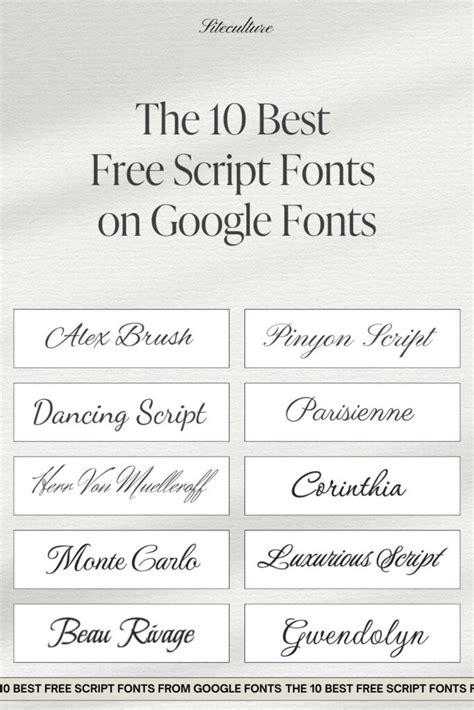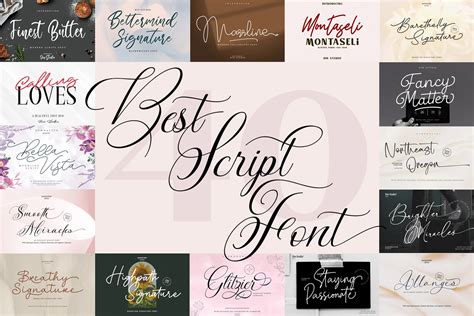
Best Script Fonts Google: Free & Premium Options
Readers, have you ever been captivated by a beautifully designed logo or website, noticing the intricate details and elegance of its fonts? Among the wide array of font styles, script fonts hold a special place, adding a touch of artistry, charm, and personality to any project. But navigating the vast world of free and premium script fonts can be overwhelming. That's where we come in! We've delved into the depths of Google Fonts and beyond, carefully curating a selection of the best script fonts for your design needs.
We're seasoned font enthusiasts, with a keen eye for detail and a passion for helping you find the perfect script font for your project. We've analyzed countless options, considered their versatility, readability, and aesthetic appeal, to bring you this curated list of both free and premium script fonts that are sure to elevate your designs.
The Art of Script Fonts: A Journey Through Styles
Script fonts, derived from cursive handwriting, have a unique flair that sets them apart. They evoke a sense of fluidity, elegance, and personality, making them ideal for adding a touch of sophistication to any design. But before diving into our curated list, let's explore the diverse world of script fonts and their captivating styles.
1. Formal Script Fonts: Elegance and Refinement
These script fonts exude a sense of classic sophistication, often used for elegant invitations, wedding stationary, or high-end branding. Their refined strokes and intricate details create a timeless and refined aesthetic. Think of them as the black tie attire of the font world - perfect for occasions that demand a touch of formality and a touch of class.
2. Casual Script Fonts: Playful and Approachable
On the other side of the spectrum lie casual script fonts, bursting with playful energy and a touch of whimsy. These fonts are perfect for projects seeking a friendly and approachable feel, such as social media graphics, blog headers, or quirky product packaging. They're like the jeans and t-shirt of fonts - comfortable, adaptable, and always ready for a good time.
3. Modern Script Fonts: A Fusion of Tradition and Innovation
Modern script fonts seamlessly blend traditional cursive elements with contemporary design sensibilities. They often feature clean lines, geometric shapes, and a minimalist aesthetic. They're the perfect choice for projects looking to embrace a modern and sophisticated vibe, such as website headers, brand identities, and minimalist marketing materials.
Best Free Script Fonts on Google Fonts: A Treasure Trove of Creativity
Google Fonts is a haven for designers, offering a vast library of free, high-quality fonts, including a stunning collection of script fonts. Let's explore some of the best free script fonts on Google Fonts, categorized by style:
1. Formal Script Fonts on Google Fonts
- Dancing Script: This font offers a romantic and delicate feel, ideal for invitations, logos, and website headers. Its flowing strokes and elegant curves make it a charming choice for adding a touch of grace and sophistication to any design.
- Great Vibes: This font is a classic choice for projects seeking a vintage and romantic vibe. It's often used for wedding stationery, posters, and branding, and its distinctive character adds a timeless and sophisticated touch.
- Satisfy: This stylish and elegant script font is perfect for adding a touch of sophistication to logos, headlines, and branding materials. Its bold strokes and distinctive curves create a unique and memorable visual impact.
2. Casual Script Fonts on Google Fonts
- Allura: This font is a versatile and charming script font, perfect for adding a whimsical and fun touch to projects such as social media graphics, posters, and website headers. Its flowing strokes and playful curves create an energetic and inviting feel.
- Amatic SC: This font exudes a playful and quirky energy, perfect for projects seeking a fun and approachable vibe. It's often used for social media graphics, posters, and branding, adding a touch of personality and whimsy.
- Handlee: This charming and approachable font is great for projects that require a friendly and inviting feel. It's often used for social media graphics, website headers, and branding, adding a touch of warmth and personality.
3. Modern Script Fonts on Google Fonts
- Playfair Display: This font stands out with its elegant curves and refined strokes, making it perfect for adding a touch of sophistication to logos, headlines, and branding materials. Its versatile style allows it to blend seamlessly with modern and traditional designs.
- Lobster: This font features a distinctive and playful style, perfect for projects seeking a unique and memorable visual impact. It's often used for headlines, posters, and branding, adding a touch of energy and personality.
- Roboto Slab: This font is a modern and versatile script font, perfect for projects seeking a clean and sophisticated feel. It's often used for website headers, branding materials, and editorial design, adding a touch of elegance and modernity.